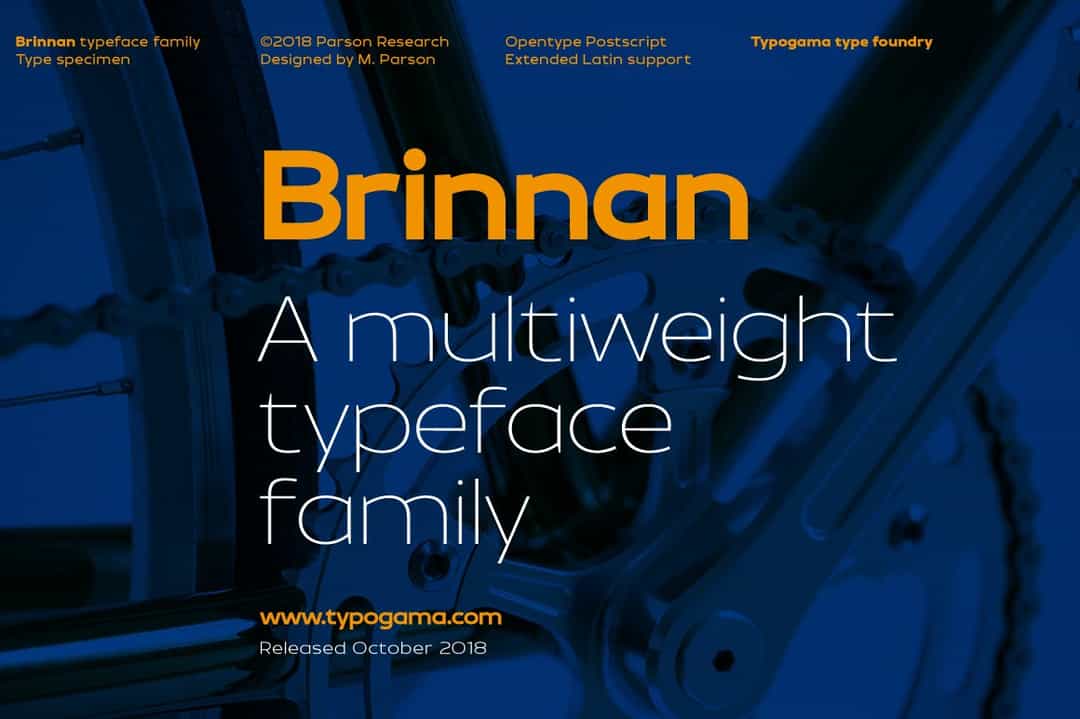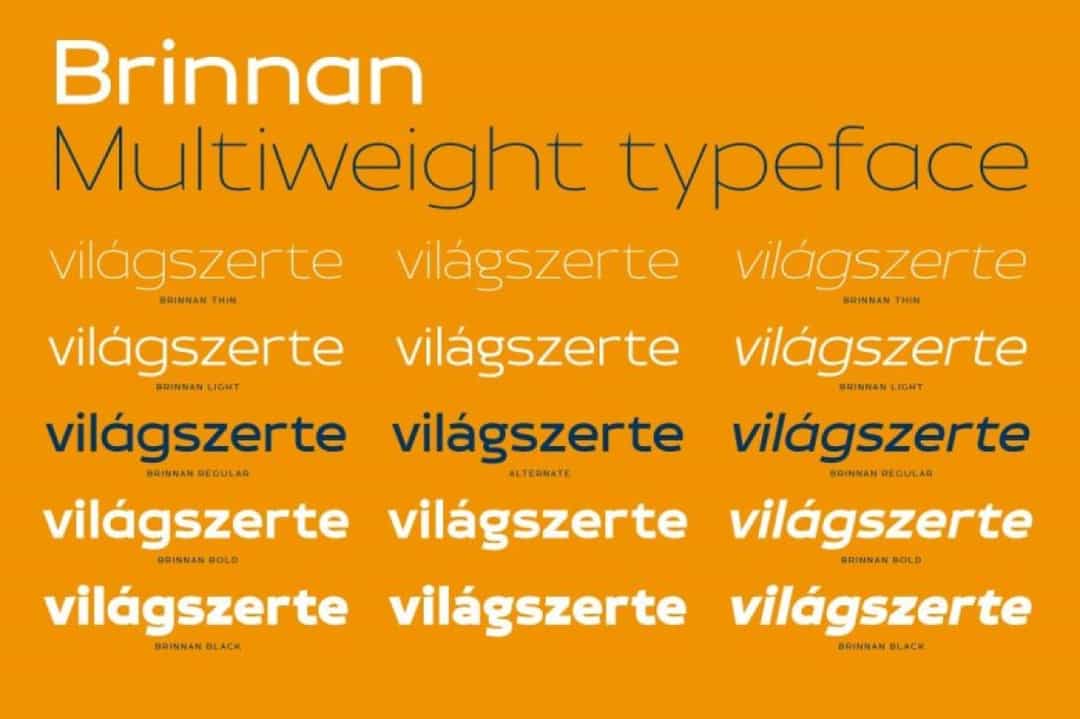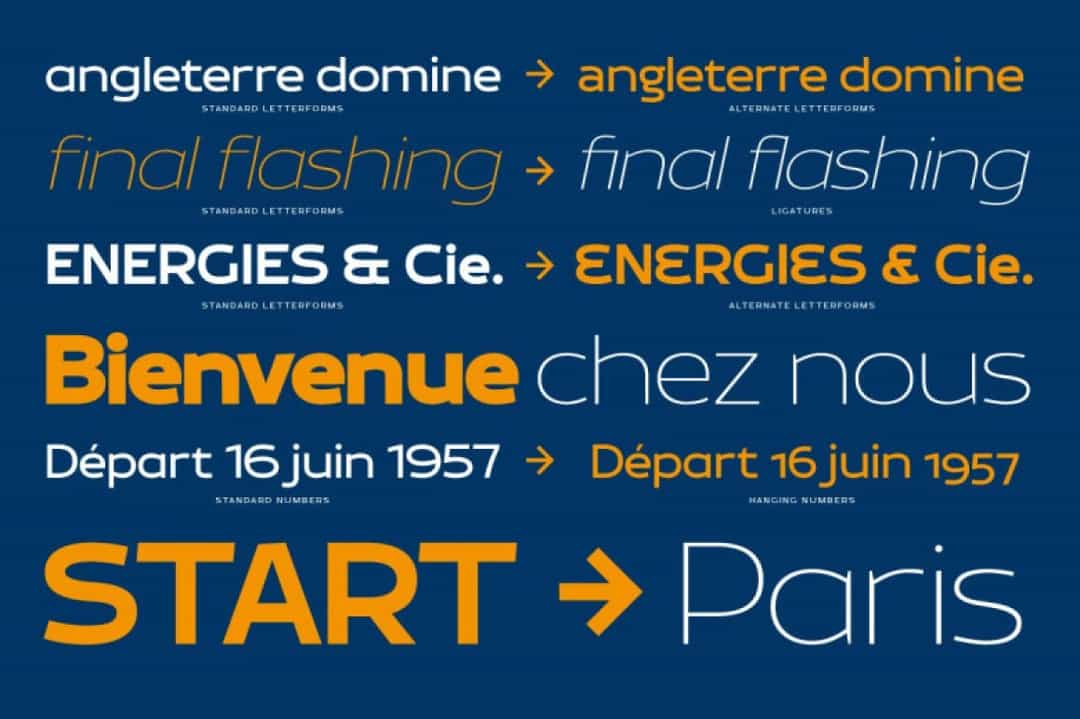
Brinnan Font is a contemporary sans serif font designed as an editorial and branding solution, featuring ten weights ranging from thin (Slim weight) to robust Black weights for editorial use and branding purposes. This family was developed as an adaptable typeface suitable for use across a variety of projects and media formats.